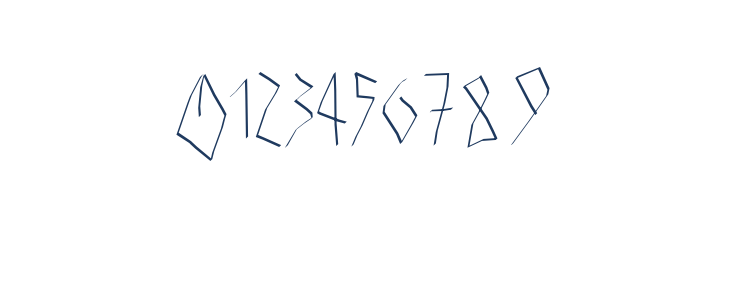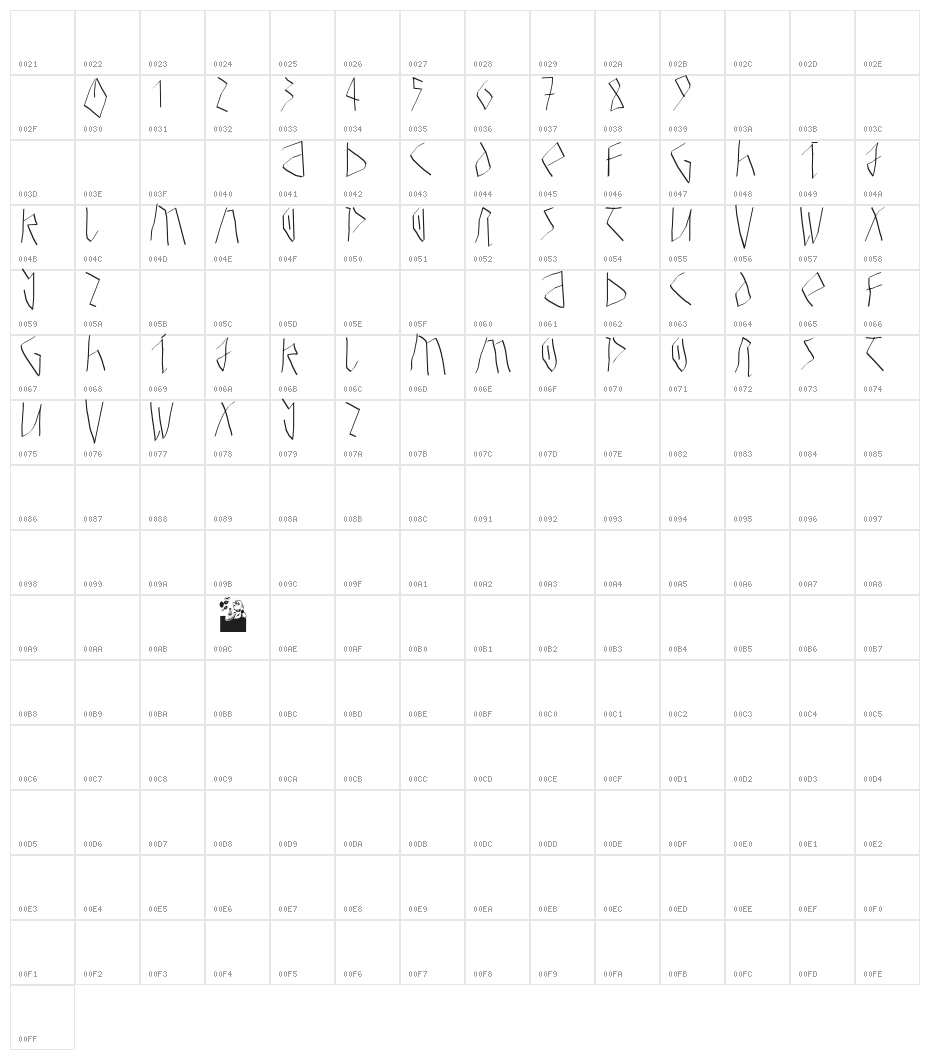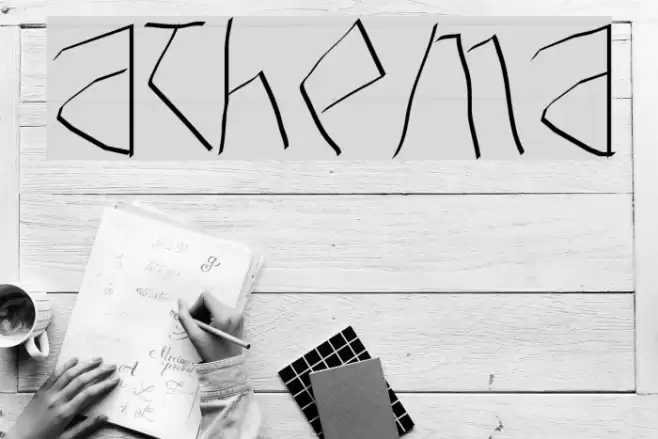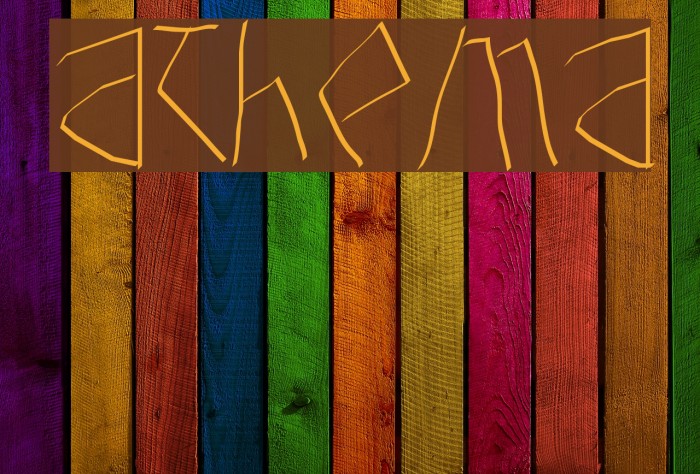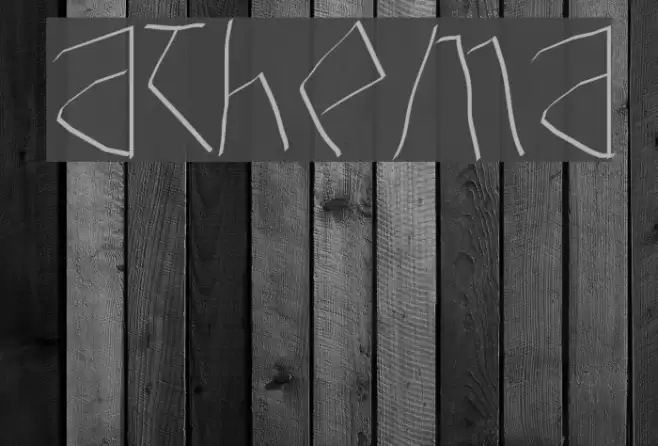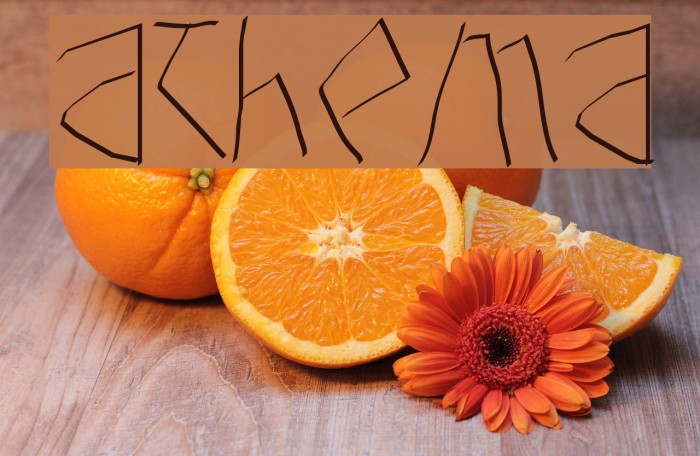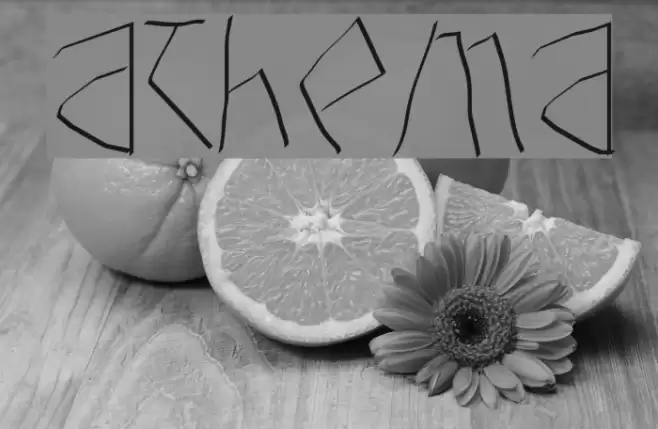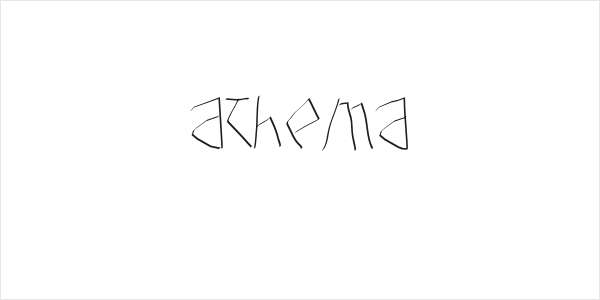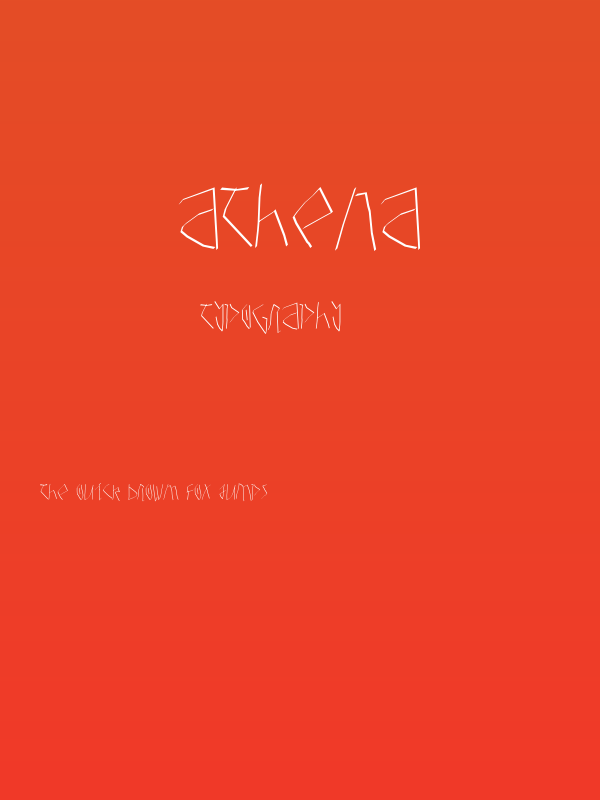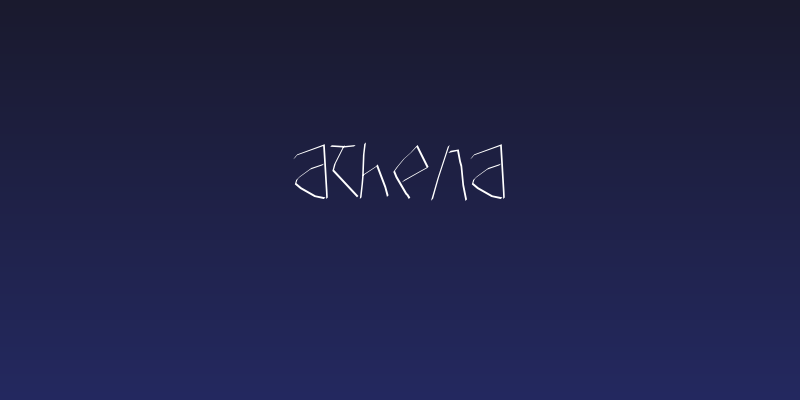
Athena Font
Athena Description
This font features a unique, angular design with sharp, pointed edges and a hand-drawn aesthetic. The characters are composed of irregular, jagged lines that give it a distinct, edgy appearance. The uppercase and lowercase letters maintain a consistent style, with the uppercase being slightly taller and more pronounced. Numbers and special characters follow the same angular theme, ensuring a cohesive look across all elements. The font's irregularity and sharpness make it stand out, offering a modern yet slightly chaotic feel. Its artistic and unconventional style is perfect for projects that require a bold statement.
| Overall Style | Modern, Edgy, Artistic |
| Use Case | Logos, Headlines, Artistic Projects |
| Proposed Projects | Ideal for album covers, edgy branding, artistic posters, and creative digital media. |